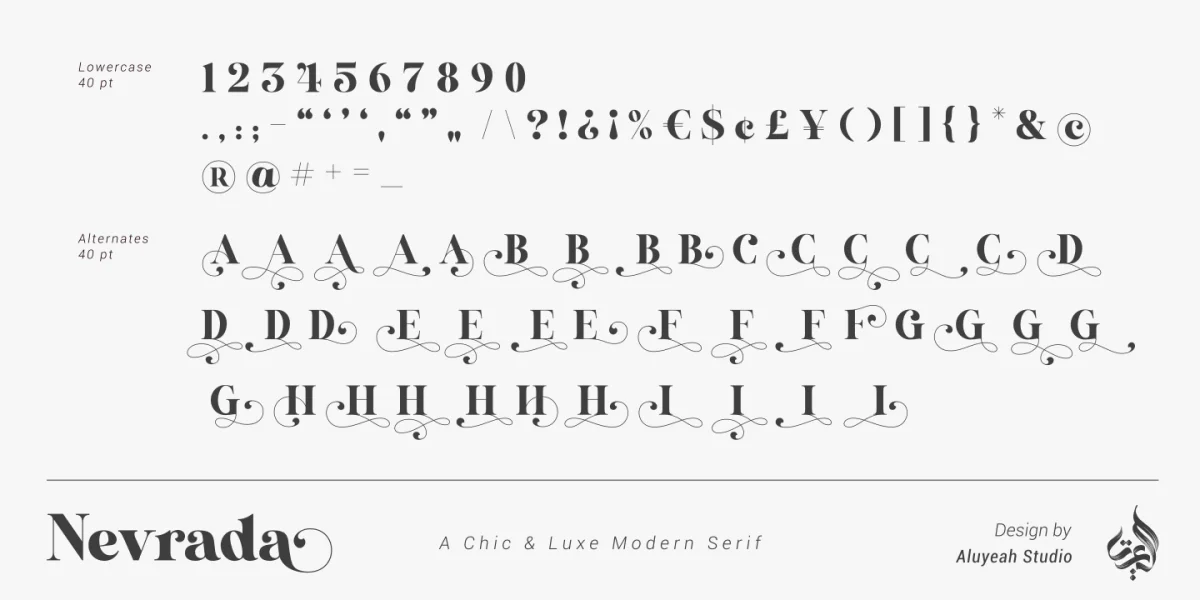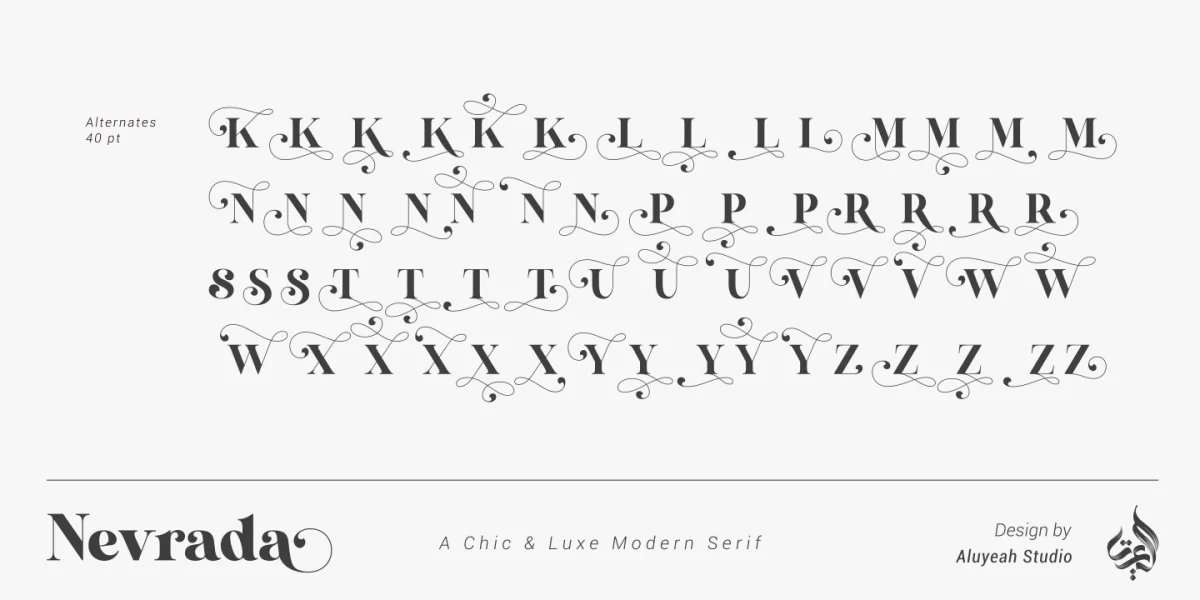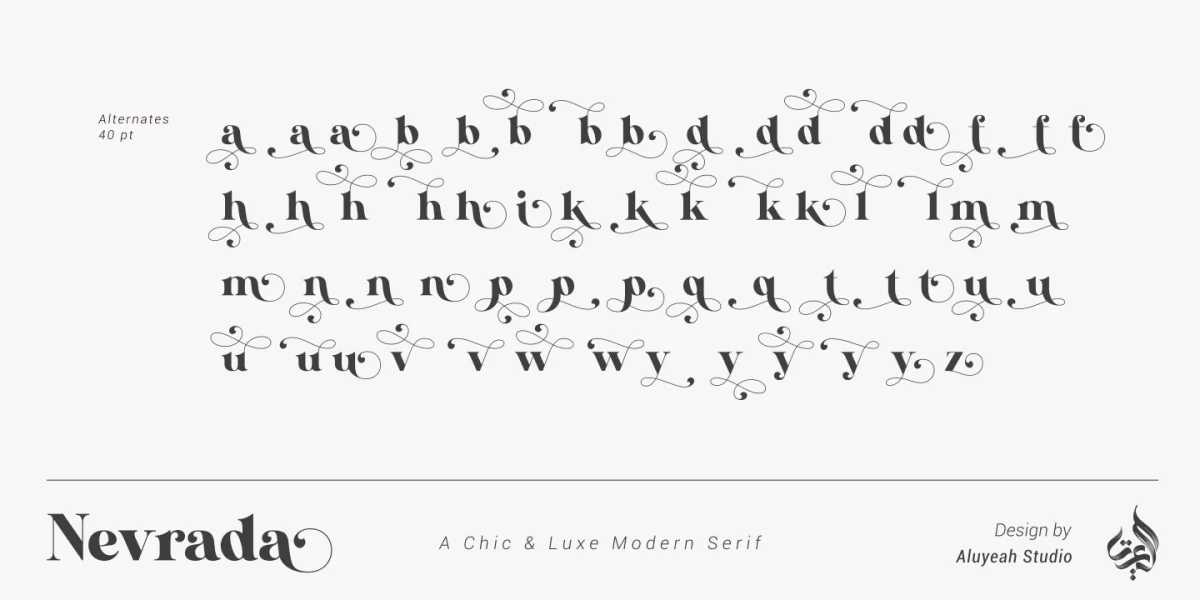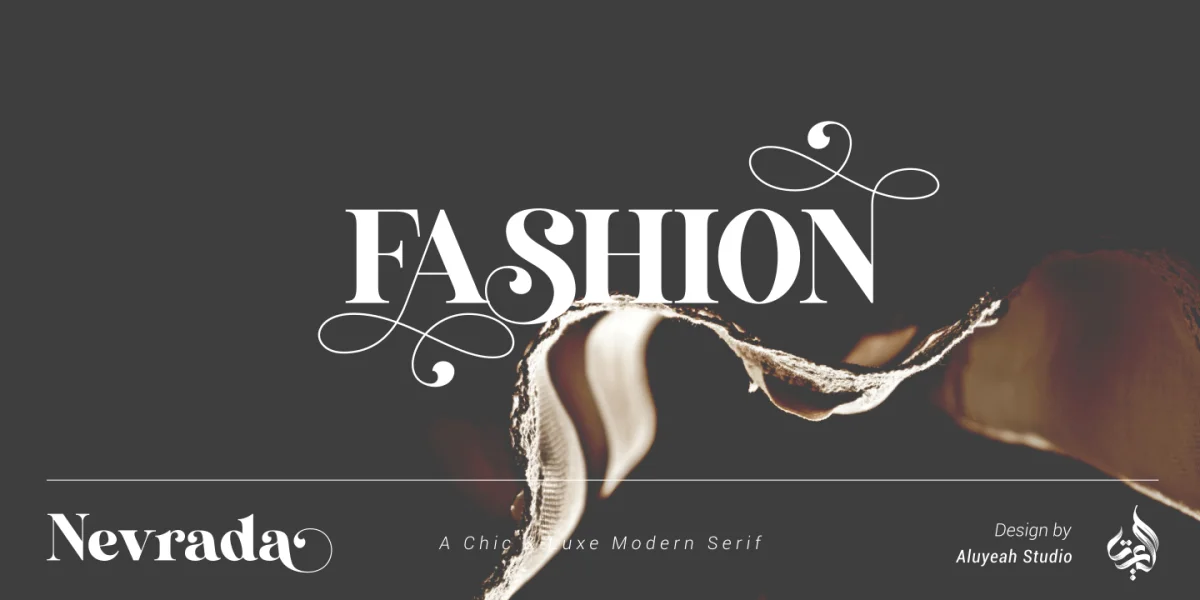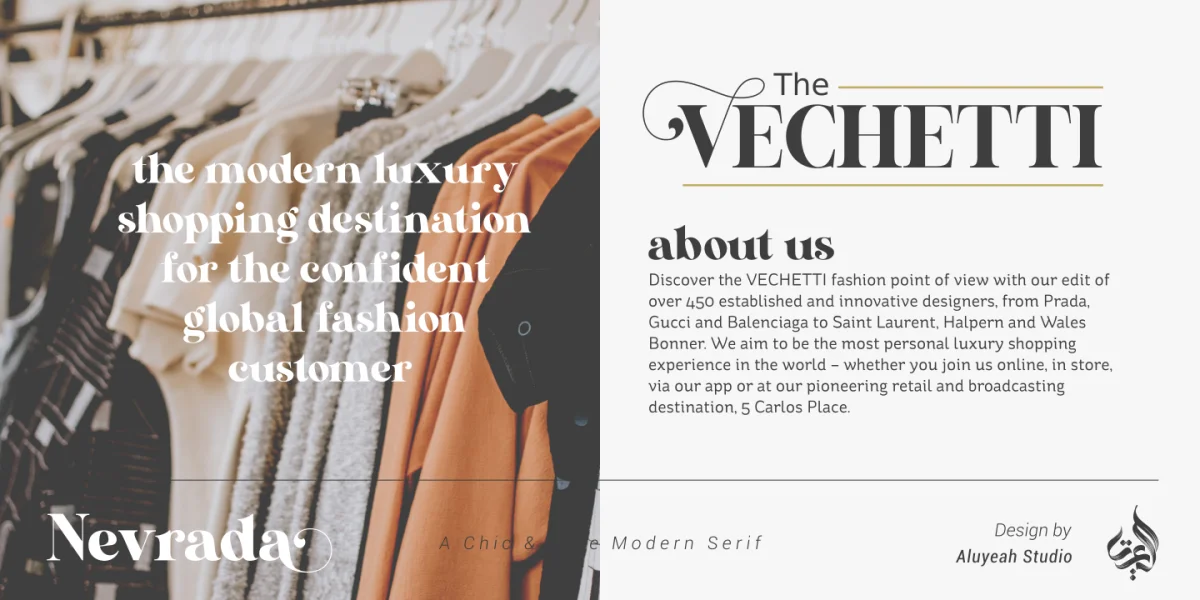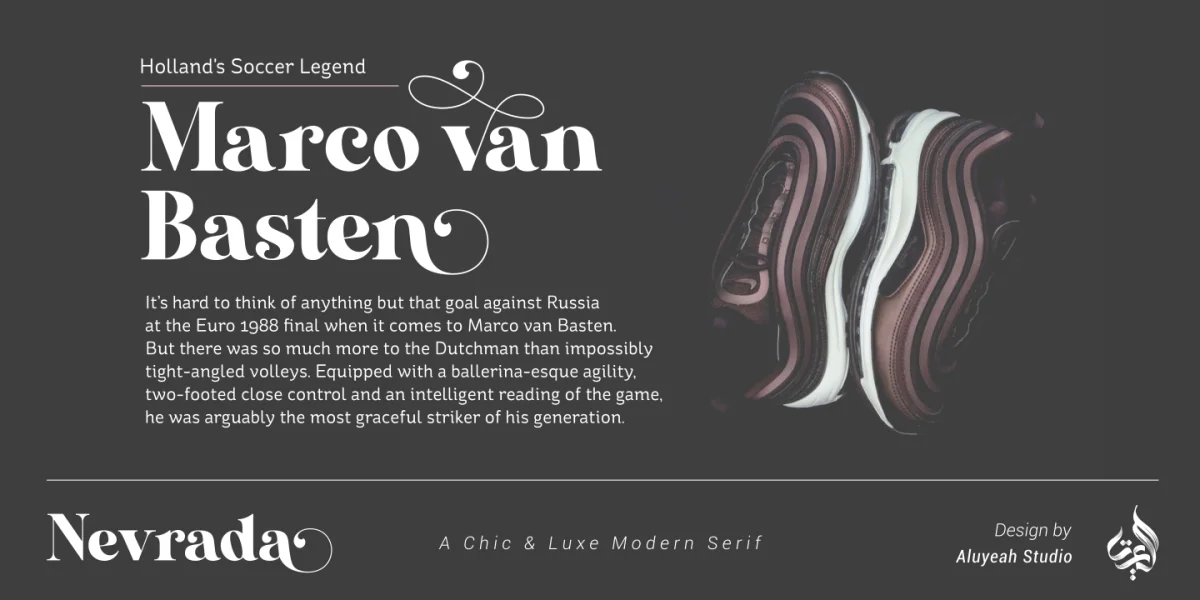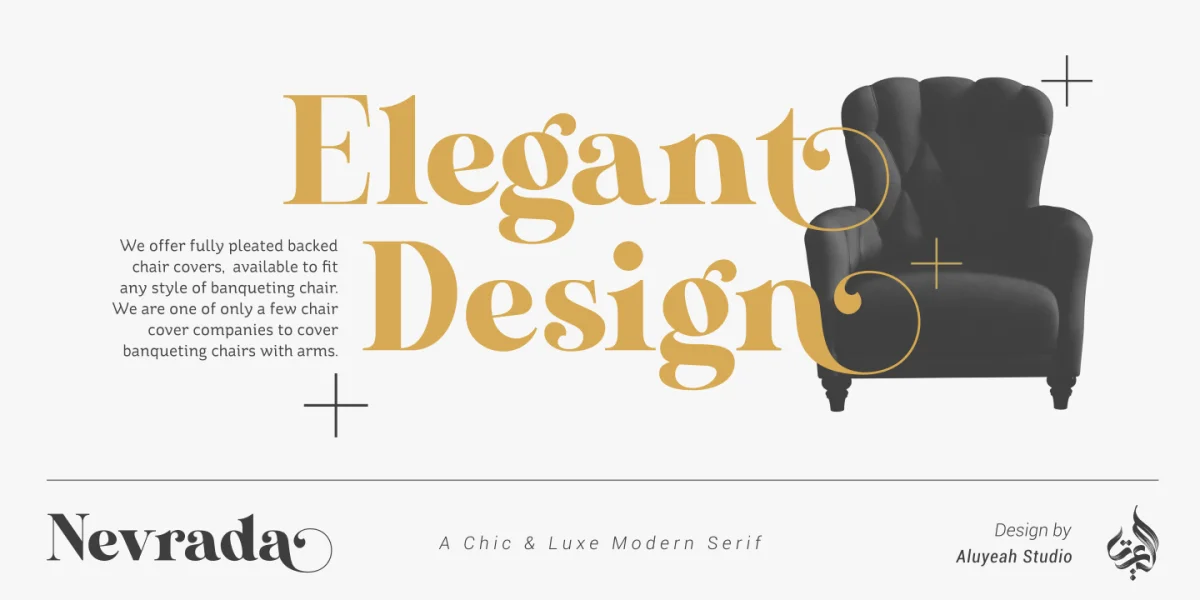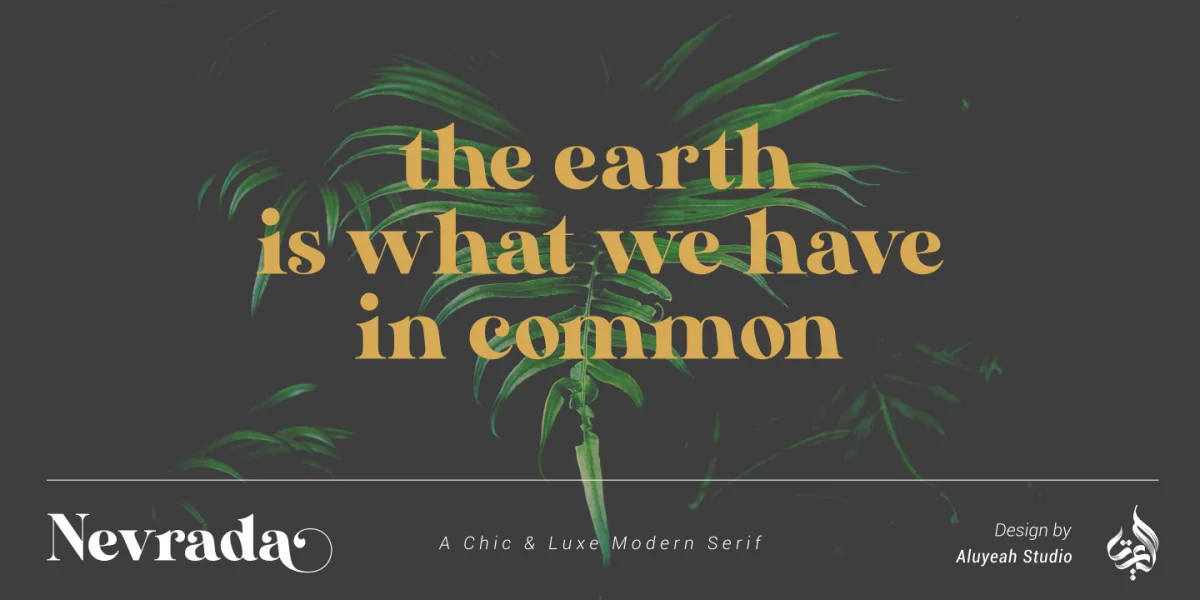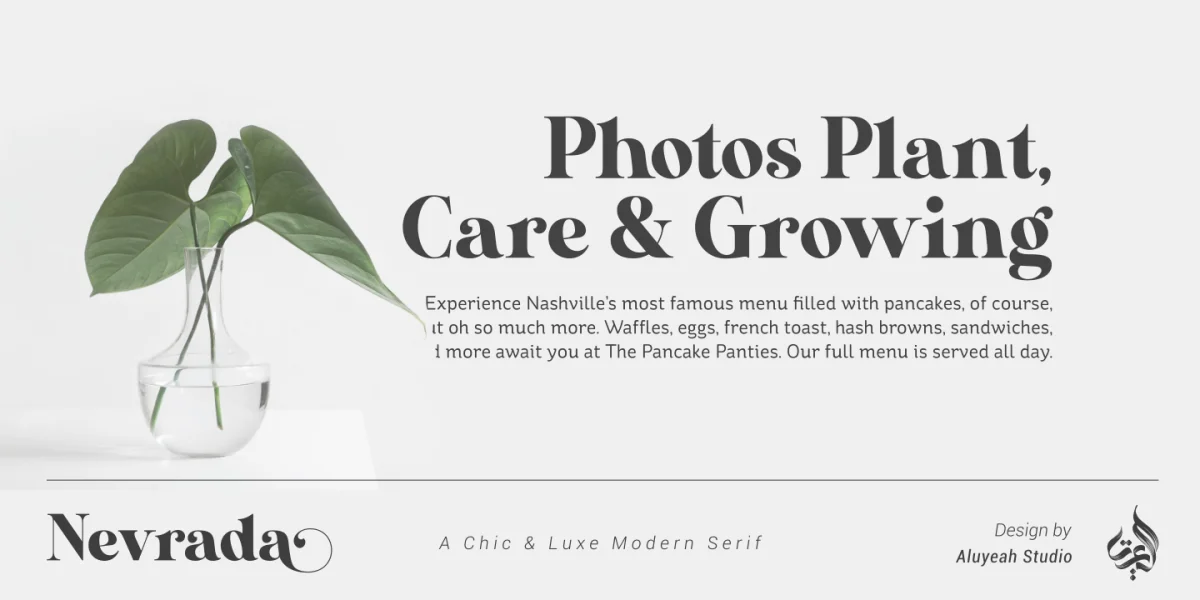
Introducing Nevrada Font. This is a display typeface with sharp serifs. If you want to stand out then this is the font for you. It’s a chic and luxurious serif font with a contemporary feel. Use it to add a bold flavor to any design! It’s ready and Perfectly fit for your logo designs, headline, fashion projects & social media posts, event poster, brand imagery, product packaging, quotes, merchandise, etc.